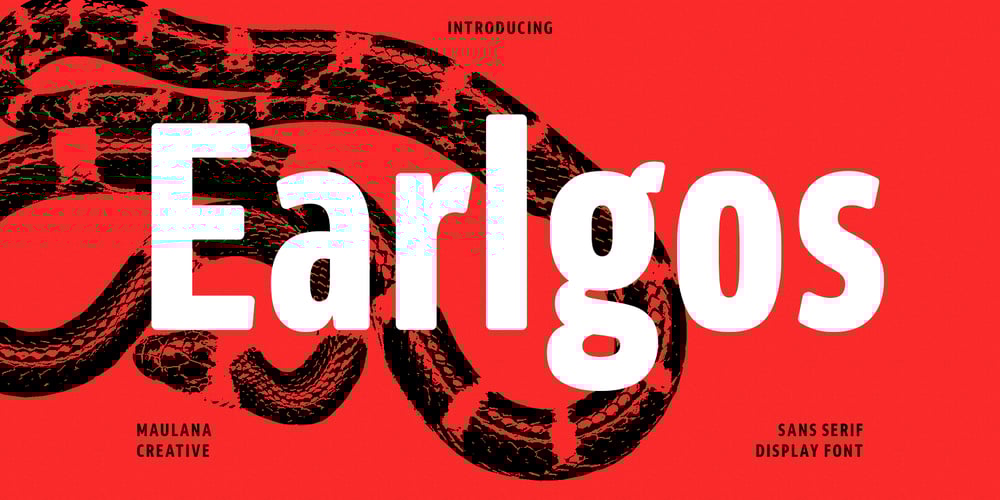
MC Earlgos Font Family was designed by Gilang Maulana and published by Maulana Creative. MC Earlgos contains 1 styles and family package options. Earlgos is a modern Condensed sans serif Display font. Bold stroke, fun character with a bit of ligatures and alternates. To give you an extra creative work. Earlgos font support multilingual more than 100+ language. This font is good for logo design, Social media, Movie Titles, Books Titles, a short text even a long text letter and good for your secondary text font with script or serif. Make a stunning work with Earlgos font. Cheers, Maulana Creative